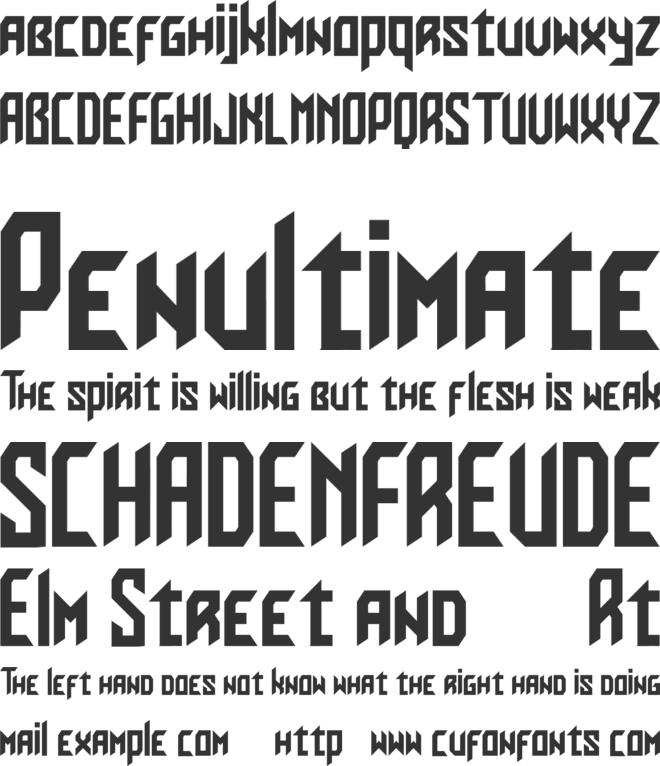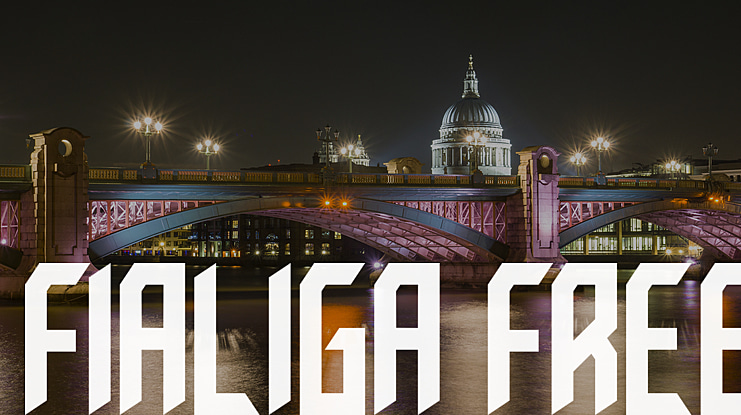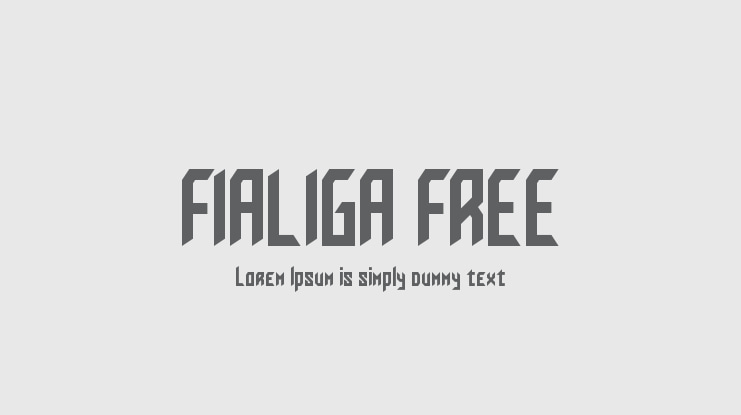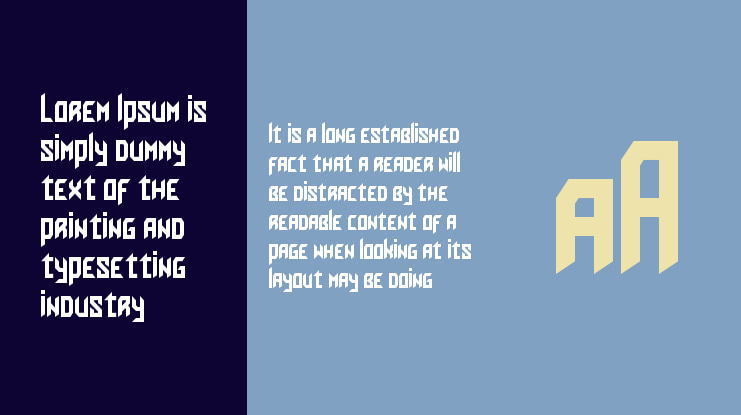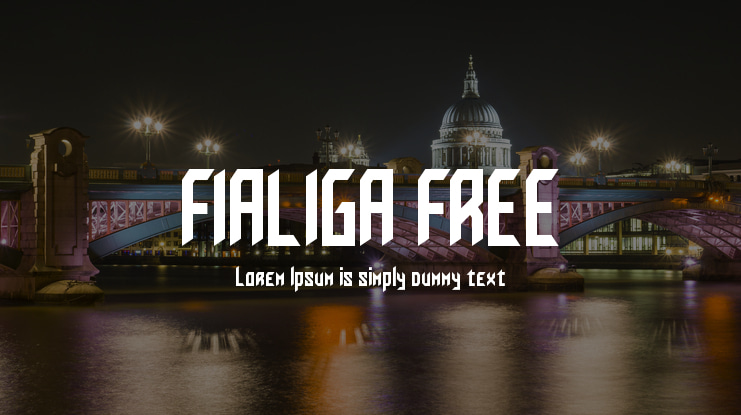
FIALIGA FREE Font
"Fialiga" is a font display is made by hand, inspired by classic posters.comes with uppercase, lowercase, numerals, punctuations and so many variations on each character include OpenType alternates, common ligatures and also additional swash to let you customize your designs. Perfect to use for Logotype, Letterhead, Poster, Apparel Design, Label and etc.THIS IS DEMO VERSION. Support us with buy commercial use license!For Commercial Use, grab it fast on this linkhttps://creativemarket.com/Inspiratype/4755889-Fialigacheck my another font on thishttps://creativemarket.com/InspiratypeAny question, drop me email to  (https://creativemarket.com/Inspiratype)Thanks